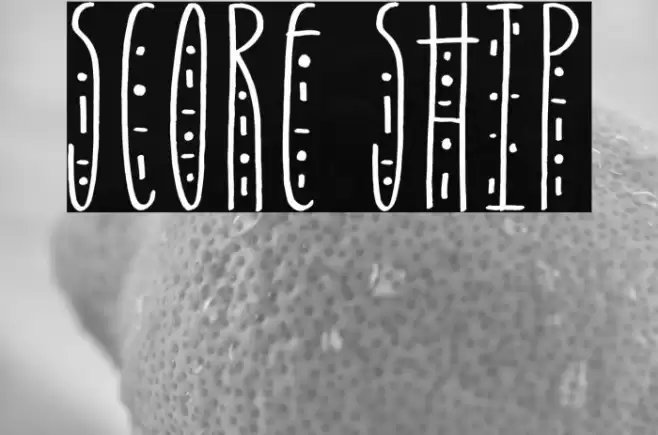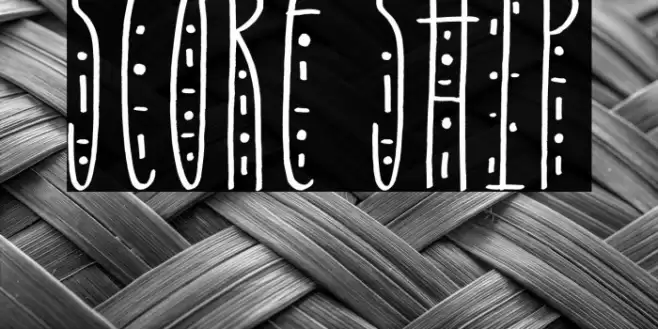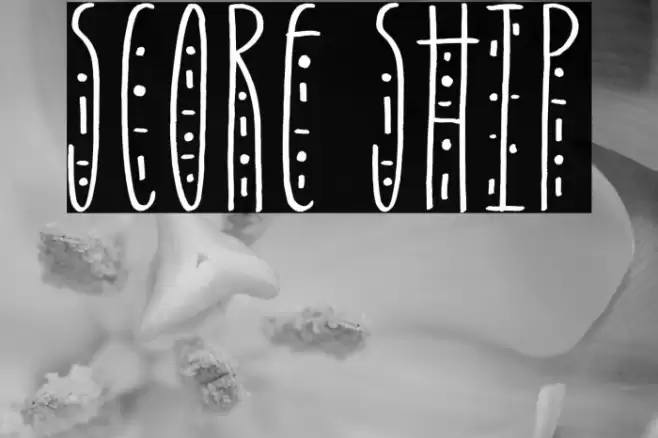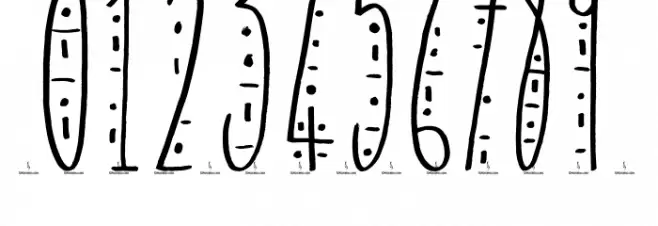
Score Ship Font
Score Ship Description
This font features a highly decorative and artistic style, characterized by tall, narrow letters with a hand-drawn appearance. Each character is adorned with unique dot and line patterns, giving it a tribal or primitive aesthetic. The strokes are uneven, adding to the handcrafted feel, and the letters vary in thickness, creating a dynamic visual rhythm. The numbers and special characters follow the same design principles, ensuring consistency across the entire set. This font is not suited for body text due to its intricate design but excels in creating eye-catching headlines or artistic projects.
A decorative, hand-drawn font with tribal-inspired patterns and tall, narrow letters from Uncategorized fonts.
- Proposed Projects: Ideal for artistic projects, posters, album covers, or any design requiring a unique, eye-catching headline.
- Use Case: Headlines, Artistic projects